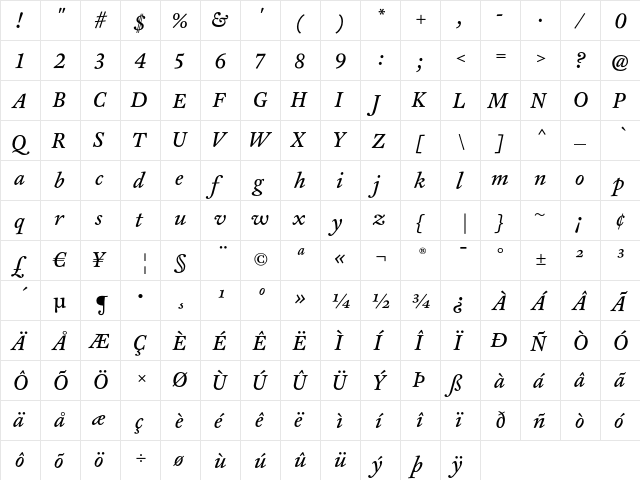
CliffordNine ItalicAltLF Font Preview
CliffordNine ItalicAltLF
Design Context for CliffordNine Typeface
CliffordNine takes a measured approach to typography — its balanced proportions and neutral character make it a reliable workhorse for both digital and print work. The dynamic lean of this cut emphasises speed and emphasis in any layout.
Pro Tip: Use CliffordNine for emphasis, pull quotes, and subheadings where its slanted energy can add rhythm to the layout.